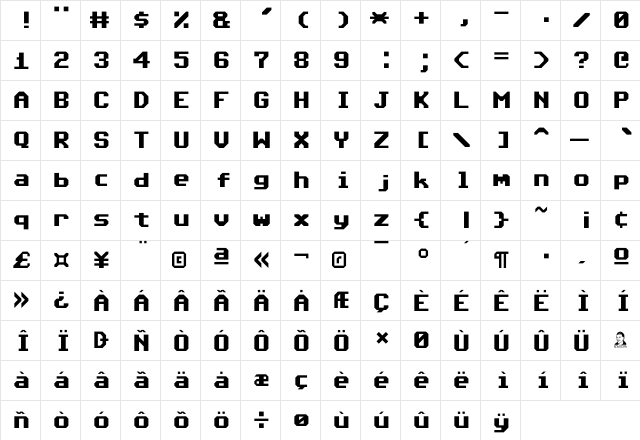
Commodore 64 Angled Regular
Design Context for Commodore 64 Angled Typeface
Commodore 64 Angled offers clean, dependable letterforms without strong stylistic allegiance, making it a practical choice for designers who need flexibility.